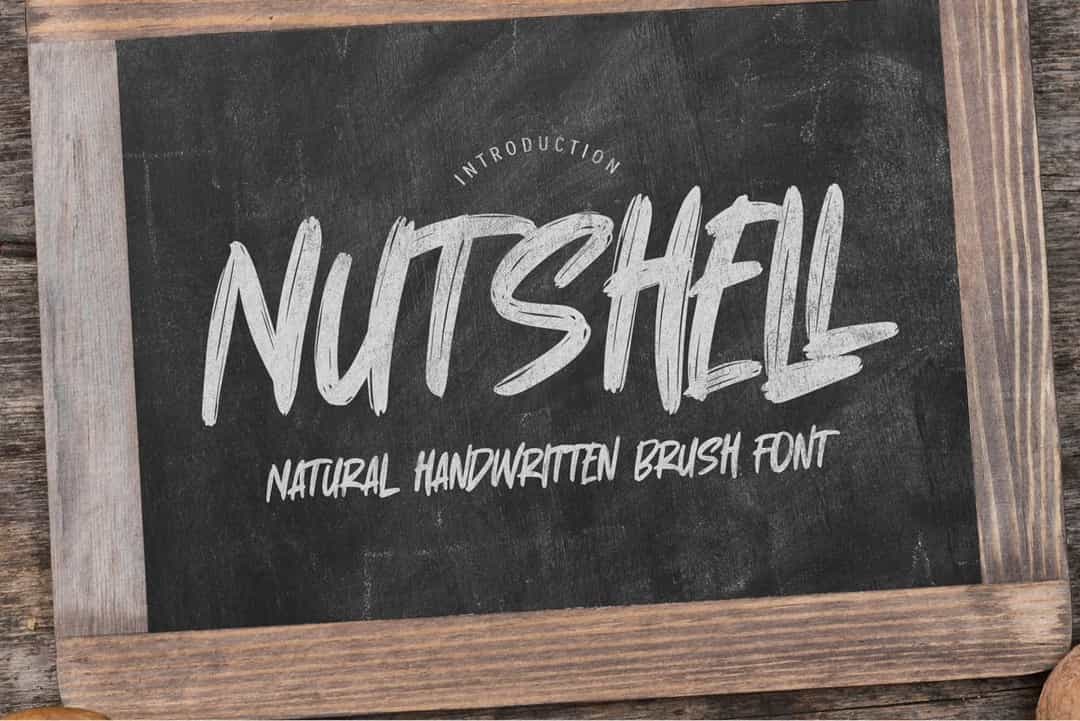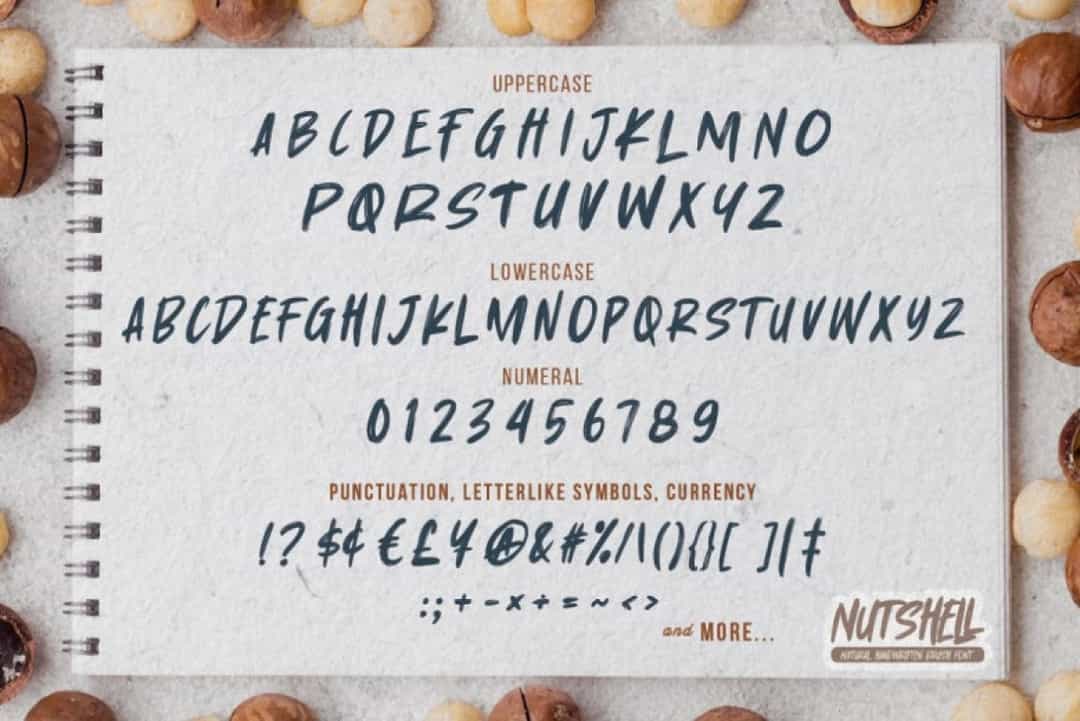
Nutshell Font is an all-natural handwritten font with an informal style and graceful lines, created with passion and love by hand. Perfect for logos invitations printed quotes packaging products cards headers logotype letterhead labels posters etc…